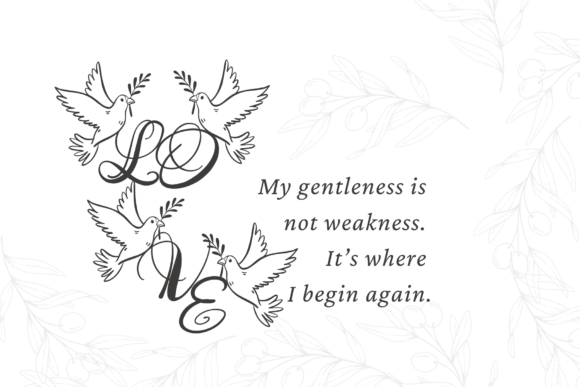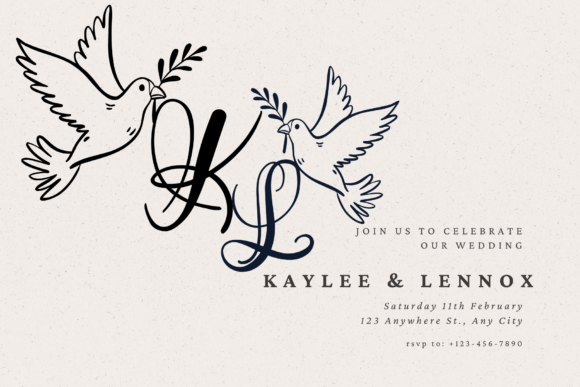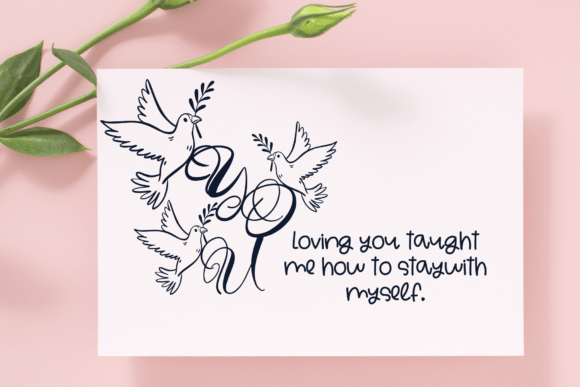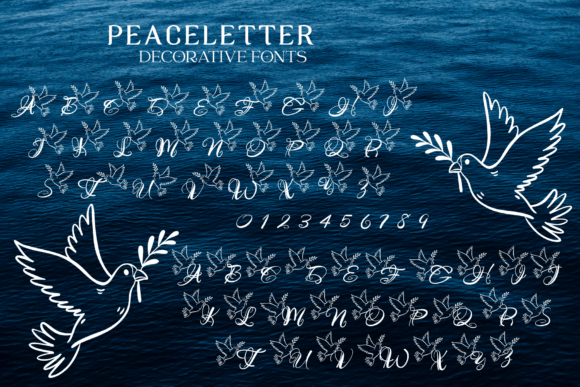
Introduction to Peaceletter Font
Peaceletter is a decorative font that gives voice to stillness, deep love, and words that remain even on days when silence says everything.
With its graceful curves and rhythmic elegance,it is perfect for love letters, greeting cards, personal journals,or any printed piece that wishes to carry gentle, heartfelt emotions .